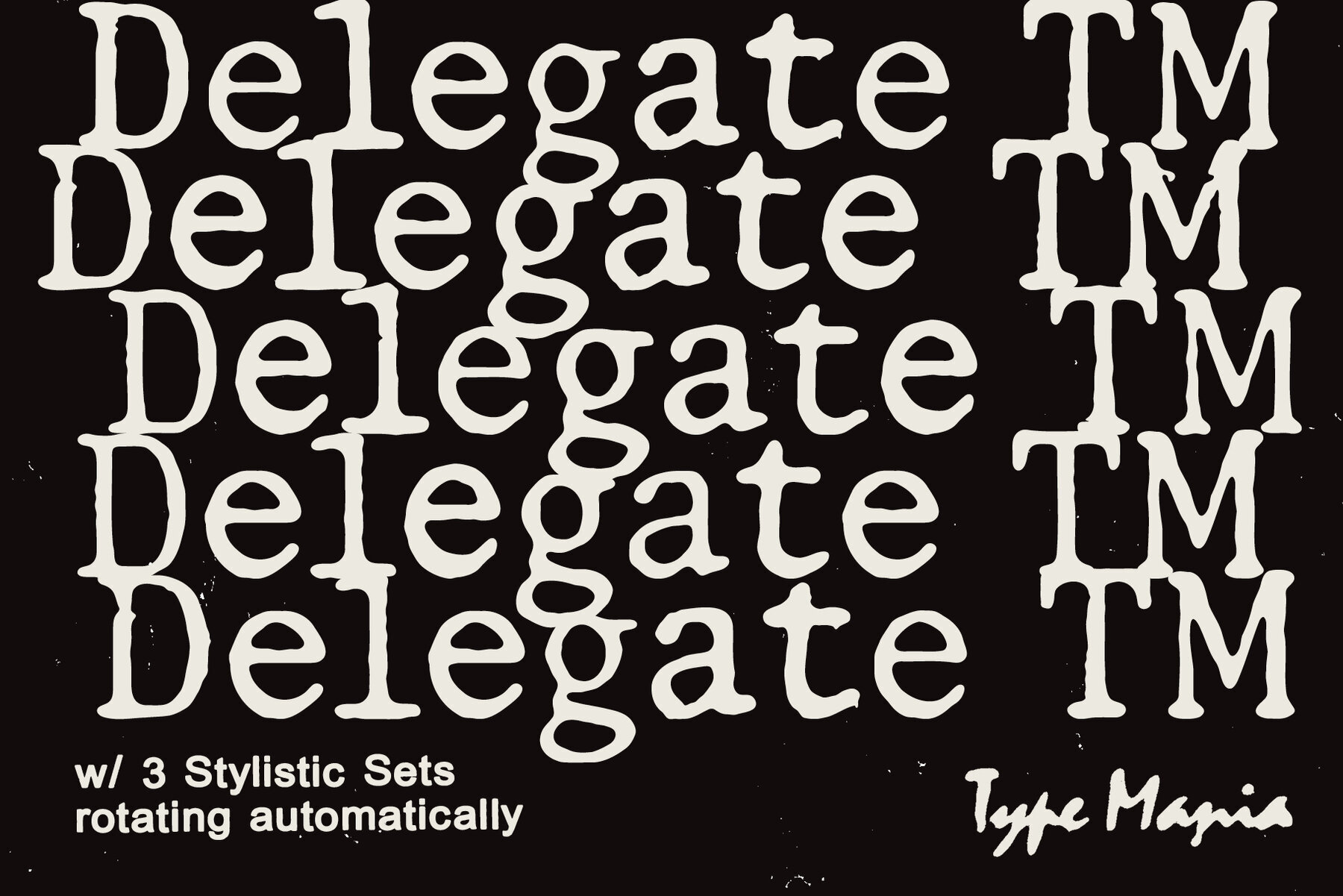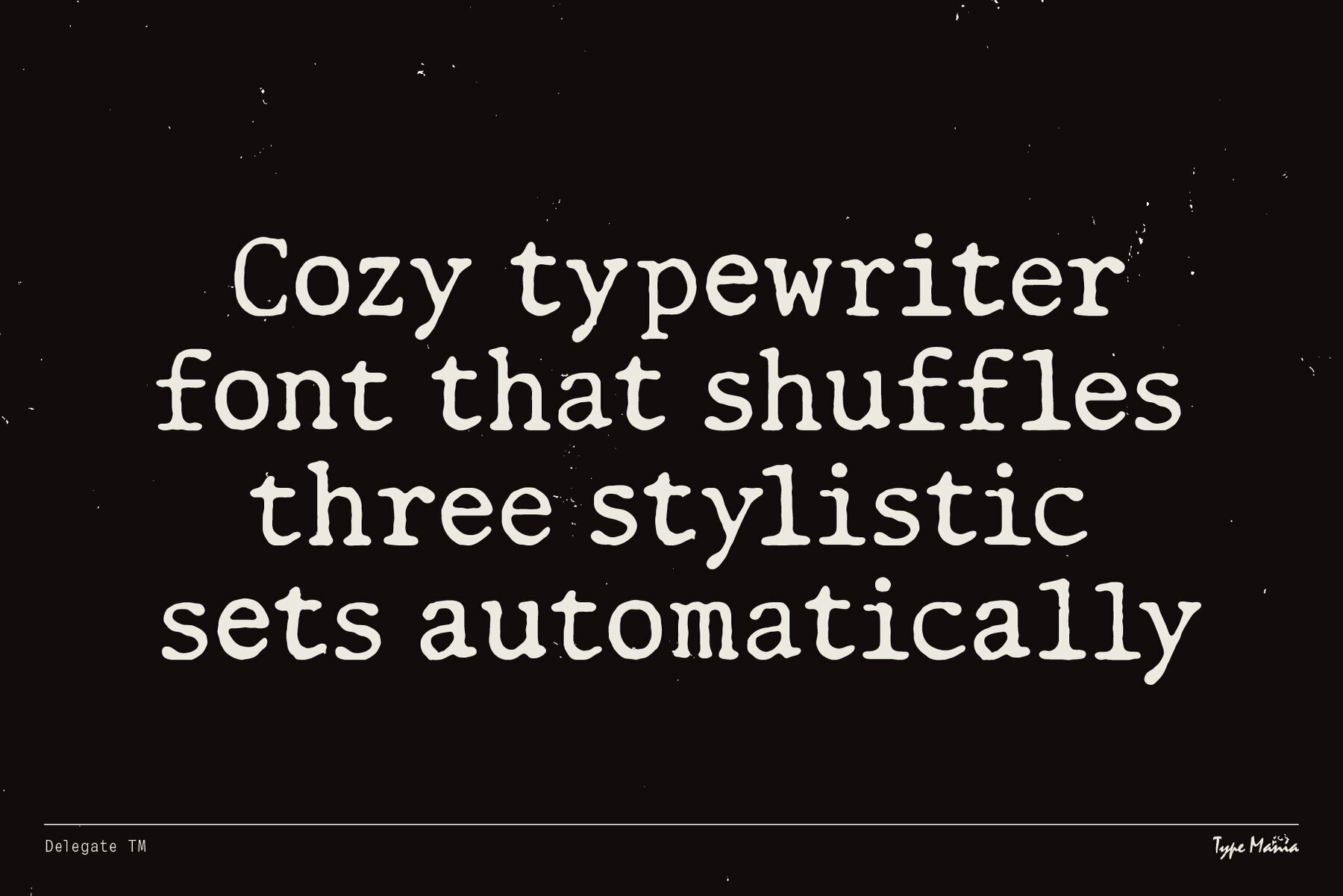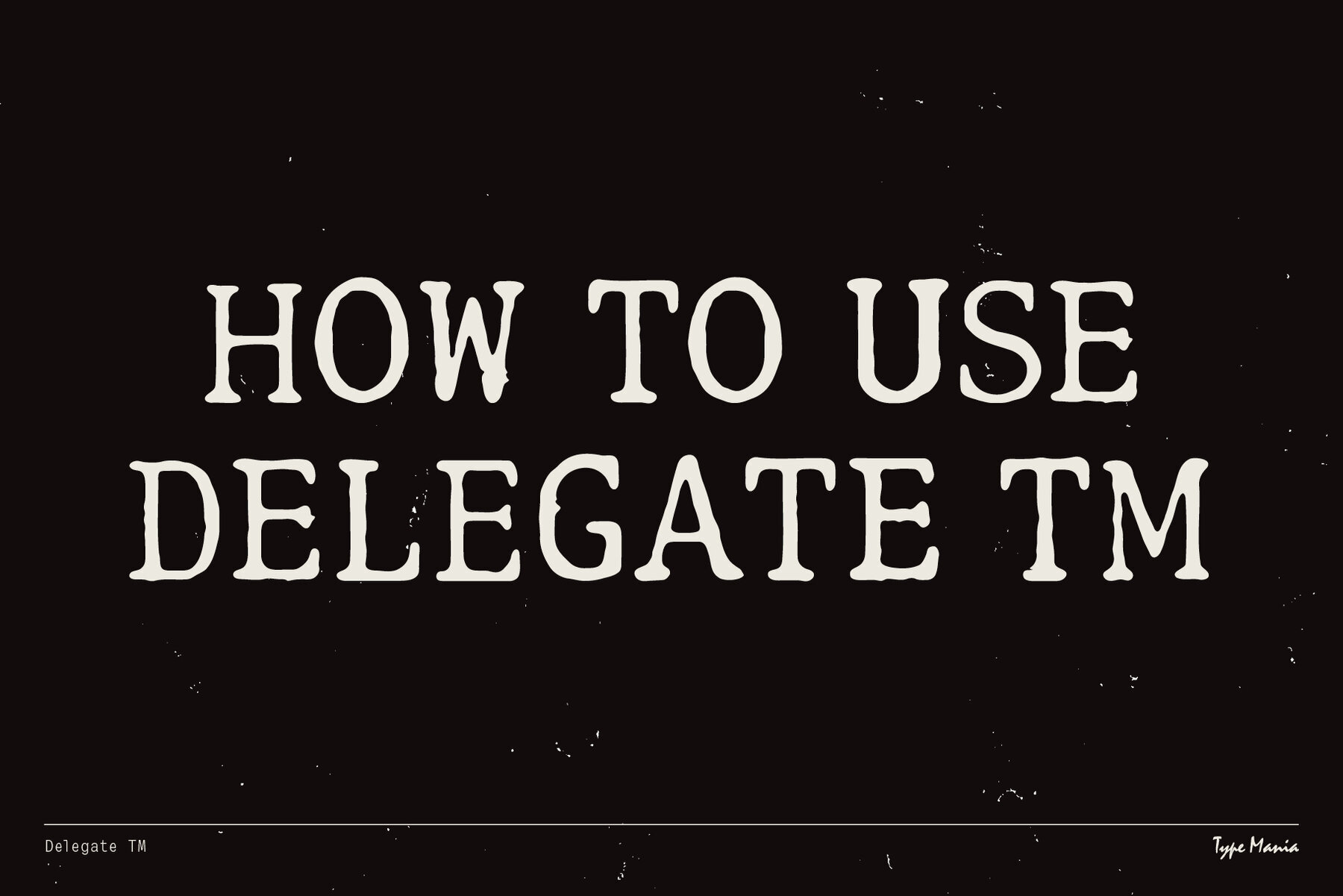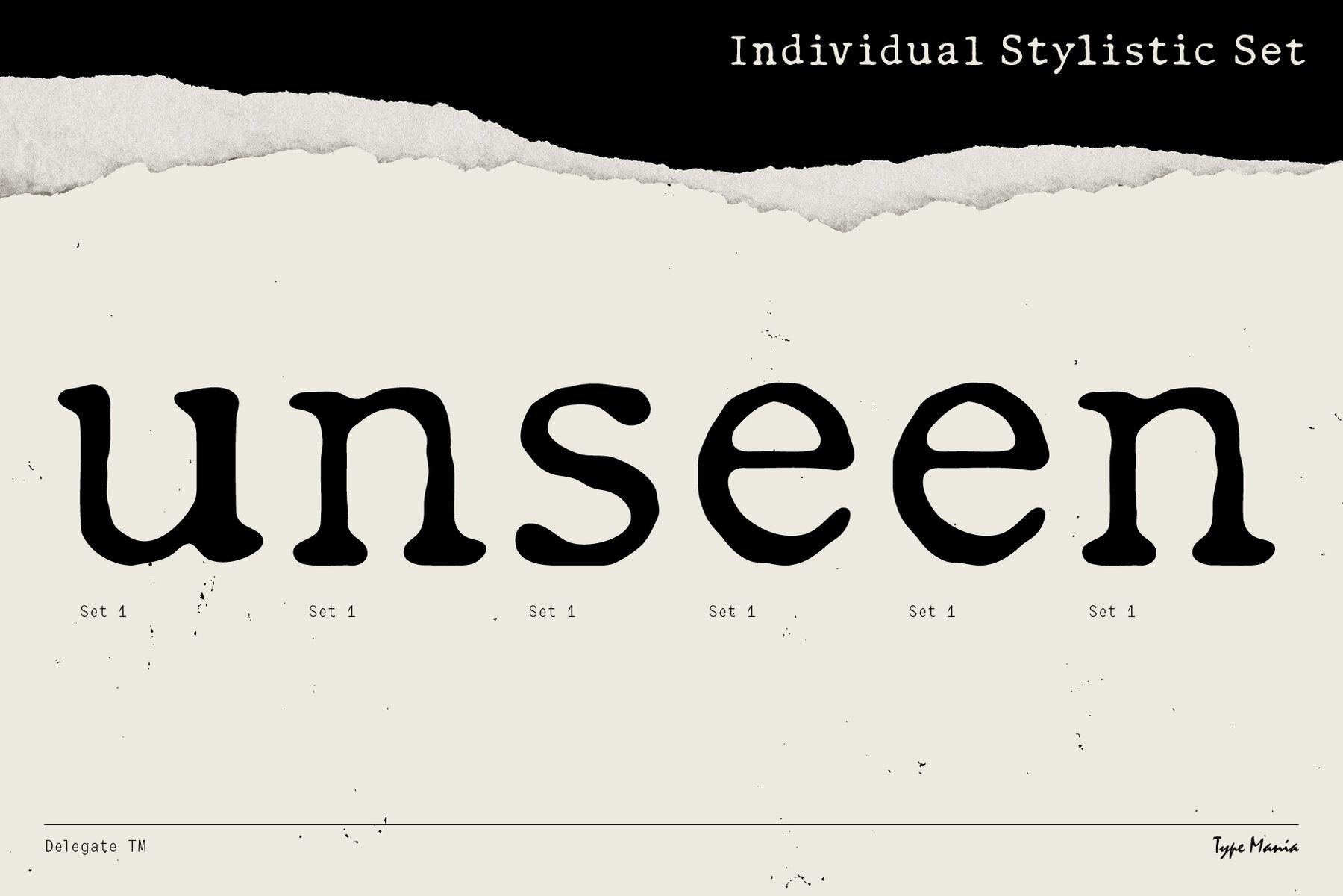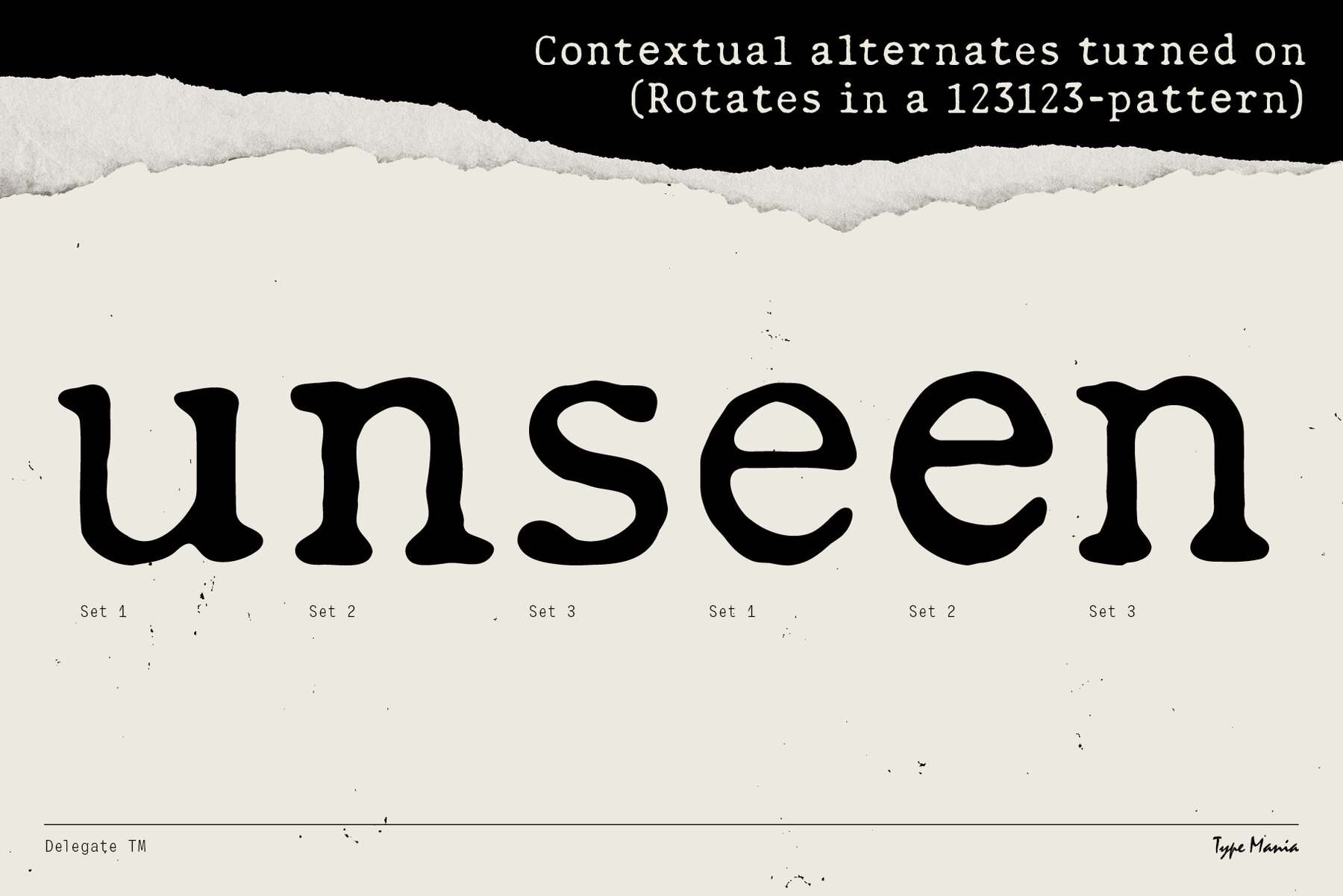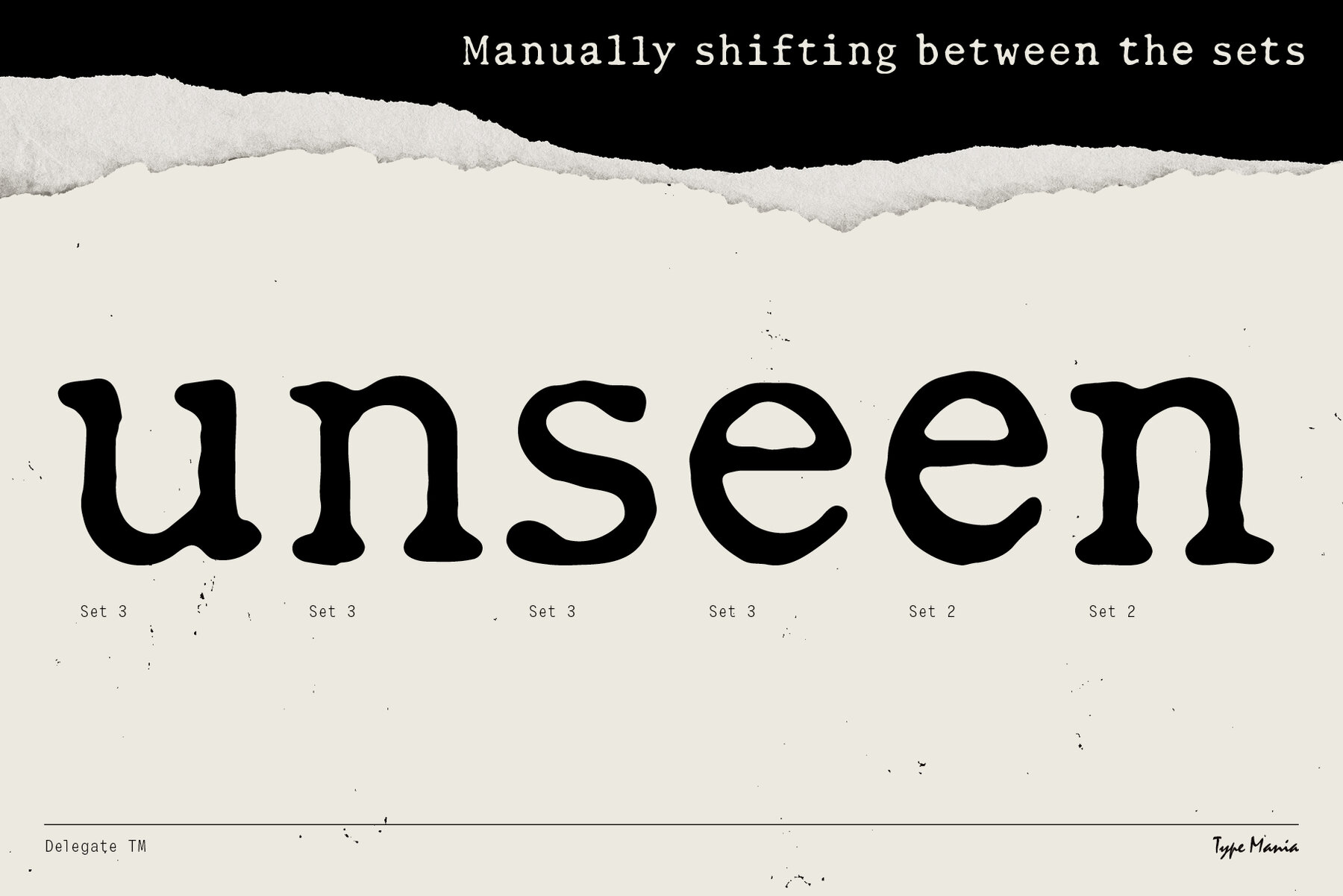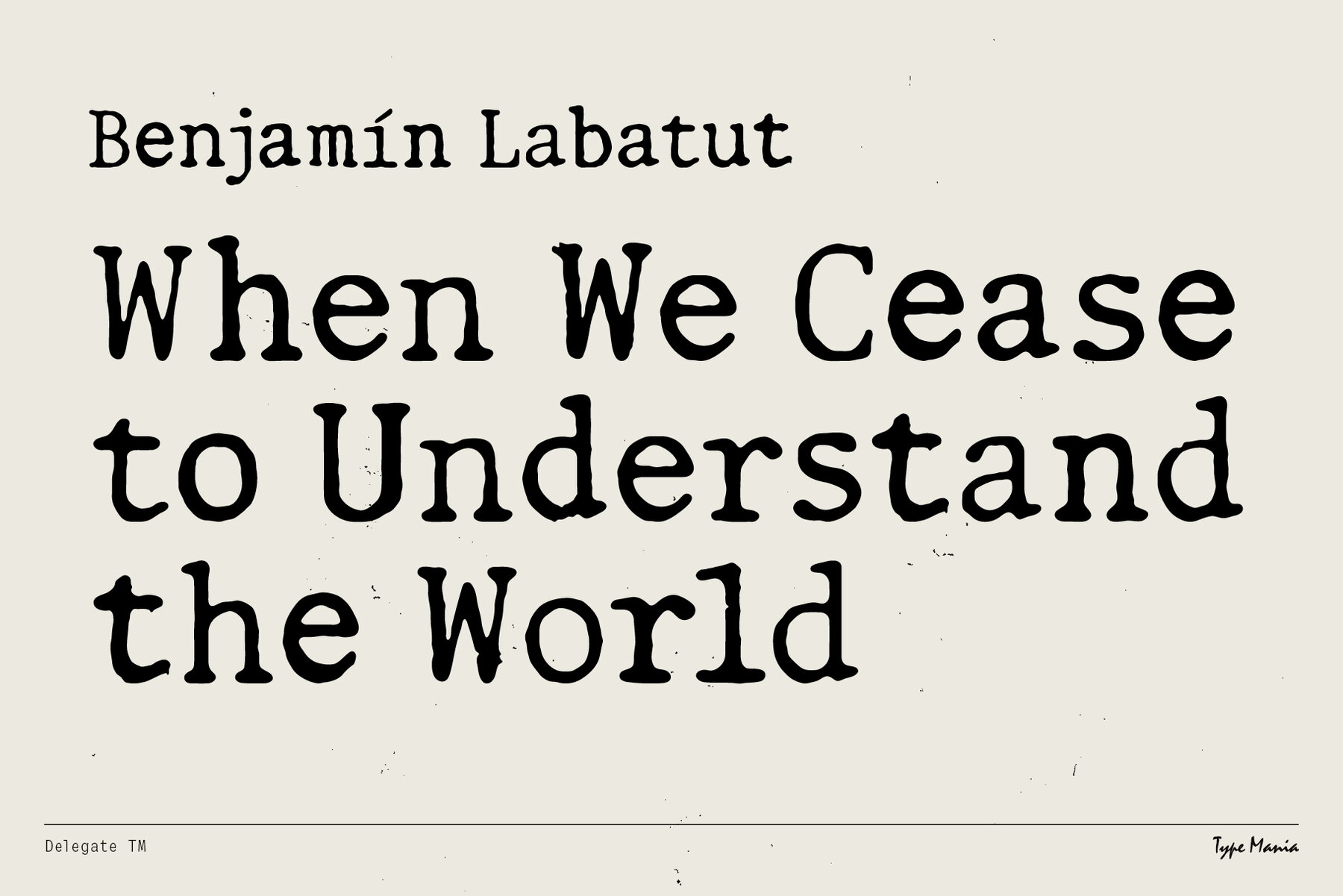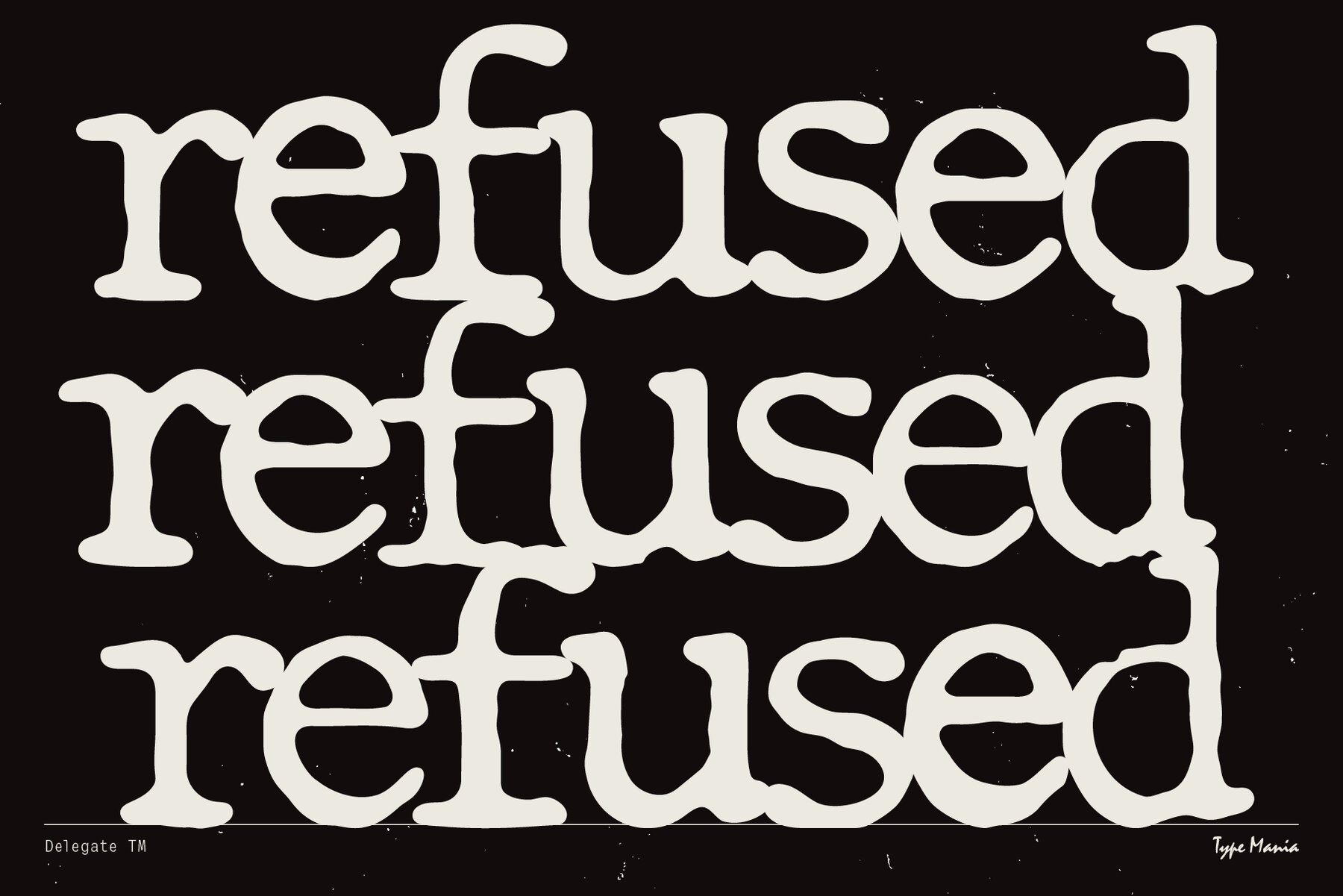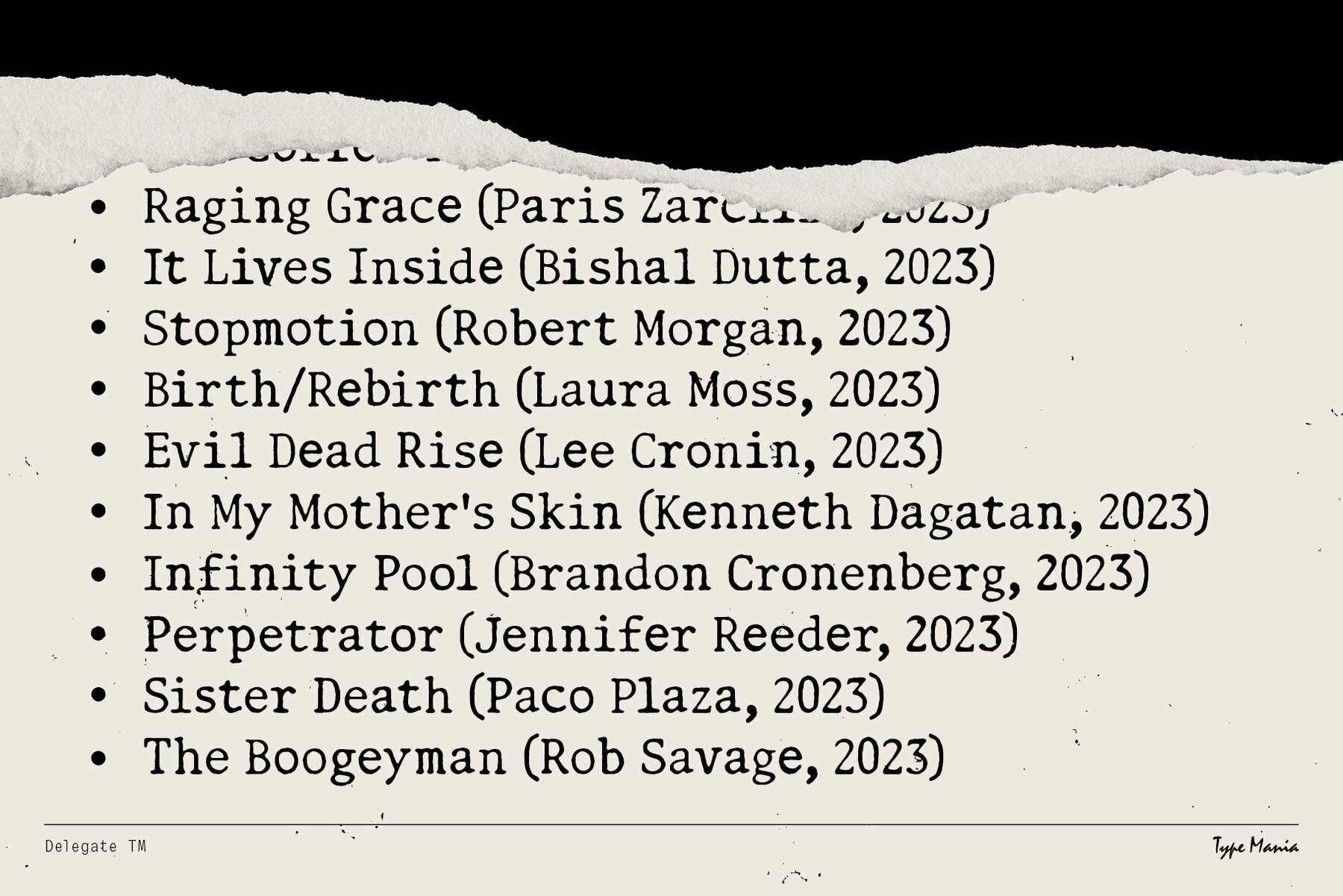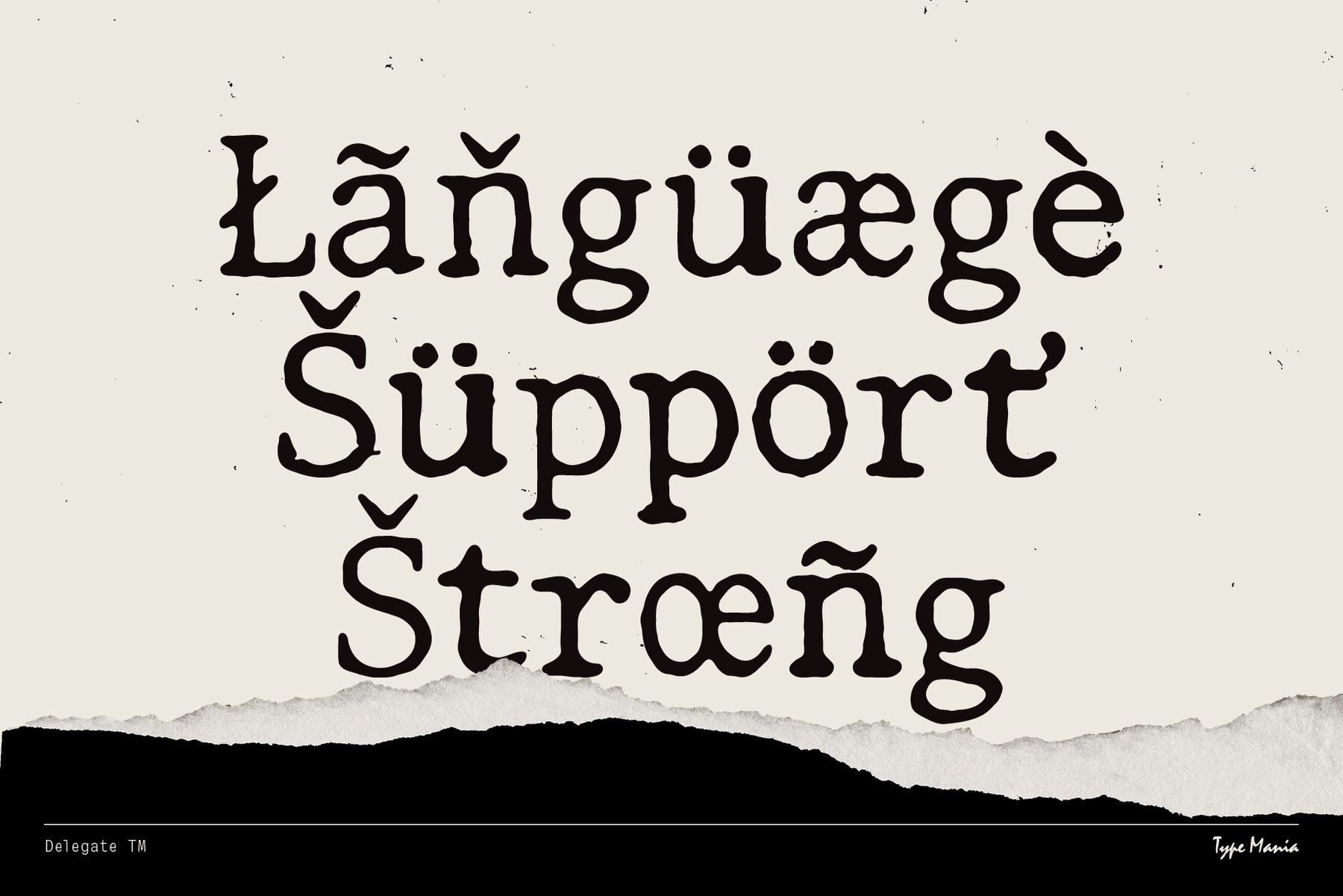
Delegate TM Font
Delegate TM Regular
Whether you're crafting a flyer for a house party or designing a brand identity; for whenever you need a cozy, distressed typeface that delivers organic vibes damn near automatic – there's Delegate TM.